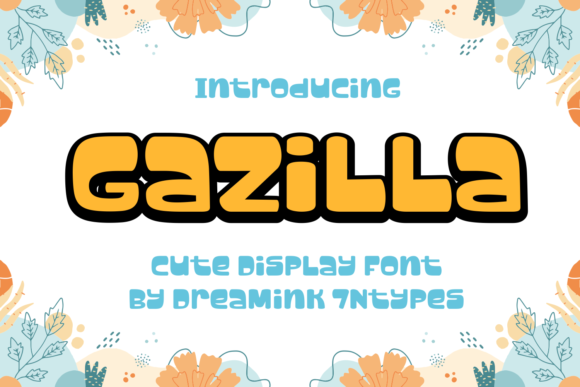
Step into a whimsical realm where letters dance with an infectious charm. Allow us to introduce Gazilla Font, a display font that exudes cuteness in every curve and stroke. This remarkable creation from Dreamink (7ntypes) is more than just a font; it's a gateway to a world of creativity and visual delight.
Picture your designs adorned with the captivating allure of Gazilla. Its letters, like jubilant sprites, leap off the page, captivating hearts with their playful personality. Whether you're a designer crafting captivating logos, a writer weaving enchanting stories, or a marketer seeking to leave an indelible mark, Gazilla is your font of choice.
With its playful nature, Gazilla breathes life into any project. Its playful shapes and cheerful disposition are a perfect match for children's books, enchanting invitations, and whimsical branding. Unleash your imagination and witness the magic unfold as Gazilla transforms ordinary words into extraordinary works of art.
Gazilla's versatility knows no bounds. Dive into the world of book texts, documentation, business reports, and business correspondence, where Gazilla's charm adds a touch of delight to even the most mundane tasks. Its playful spirit shines through in magazines and newspapers, turning articles into captivating adventures. Let your creativity soar as you design posters and advertisements that pop with personality, capturing attention and leaving a lasting impression.
Multimedia and corporate design take on a new dimension with Gazilla's presence. Its unique style adds a touch of whimsy to presentations, captivating audiences with its infectious charm. Whether you're a student crafting an unforgettable presentation or a professional seeking to leave a lasting impact, Gazilla is your secret weapon to success.